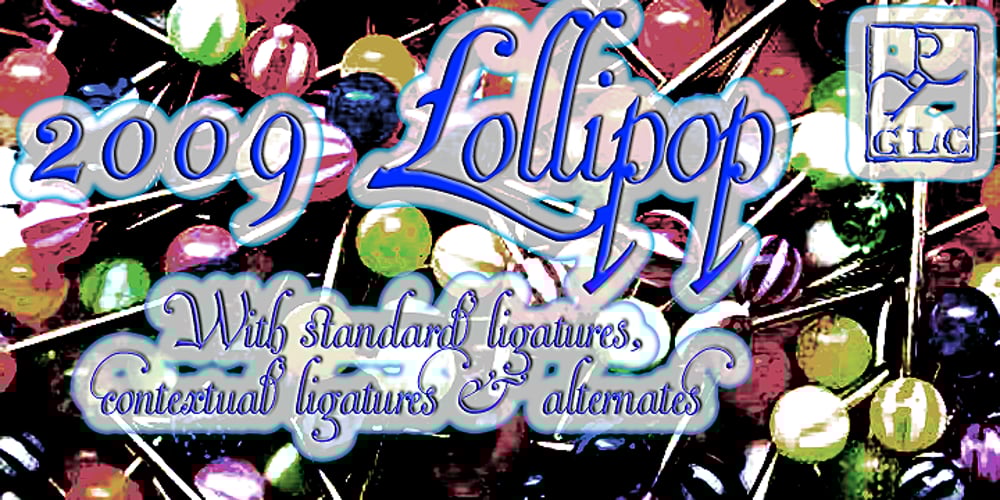
2009 Lollipop Font Family was designed by published by GLC. 2009 Lollipop contains 1 styles and family package options. This font is not a historical one, in spite of the fact that it was inspired by the Cancellaresca pattern (look at 1491 Cancellaresca and 1610 Cancellaresca). We have created this one as a fantasy script for a decorative use, like for invitation, greetings, menus, posters and so on…